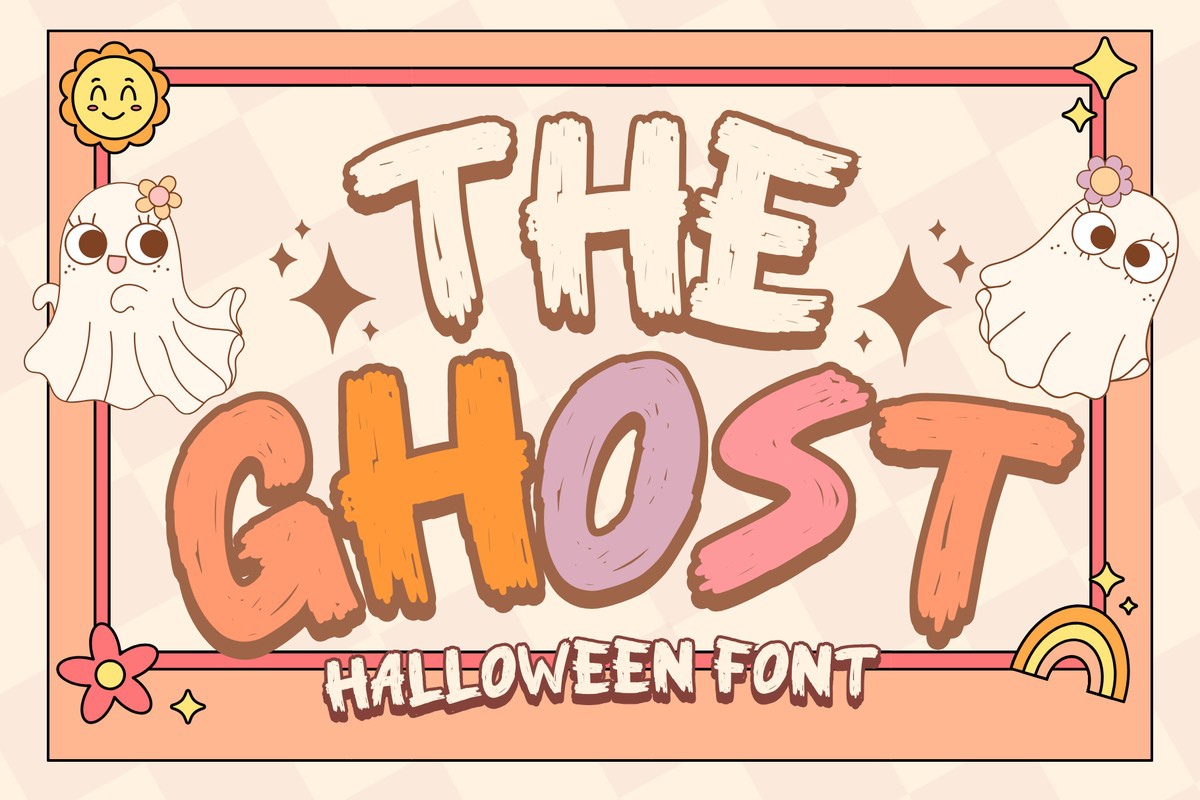
The Ghost Font
The Ghost Font excels in horror movie productions, supernatural thriller promotions, haunted attraction branding, paranormal investigation materials, gothic literature publications, mysterious escape room experiences, spooky Halloween campaigns, supernatural storytelling projects, paranormal research presentations, and ethereal mystery entertainment venues. This haunting typeface brings spectral mystery and supernatural intrigue to any paranormal-focused design project.
The Ghost Font is exciting because it embodies the chilling mystery and ethereal presence of supernatural phenomena, featuring translucent letterforms that seem to materialize from the spirit world with ghostly elegance and vanish into shadows like apparitions in the night. Its spectral character instantly conveys otherworldly presence, mysterious atmosphere, and the spine-tingling fascination that draws people to explore the unknown realms beyond mortal understanding.
The Ghost Font family includes Light, Regular, Medium, and Bold weights with spectral alternates, ethereal flourishes, paranormal ornamental elements, and supernatural symbols that enhance the ghostly aesthetic, providing horror designers with haunting tools for creating typography that channels otherworldly energy and celebrates the mysterious beauty of paranormal phenomena.
The Ghost Font Free Download offers supernatural entertainment professionals access to one of the most authentically haunting typefaces available for paranormal design applications. This exceptional font has gained recognition among horror filmmakers, haunted attractions, and supernatural entertainment venues for its ability to communicate ghostly presence and paranormal atmosphere through typography that embodies the chilling elegance of spectral manifestations.
Paranormal entertainment designers appreciate The Ghost Font for its exceptional ability to convey supernatural mystery and ghostly atmosphere through hauntingly crafted letterforms. The font's ethereal character and spectral details create immediate associations with ghost stories, paranormal encounters, and the mysterious phenomena that blur the boundaries between the physical world and the supernatural realm that exists beyond human perception.
The design philosophy behind The Ghost Font celebrates the enduring human fascination with the supernatural and the mysterious forces that exist beyond our understanding, making it particularly effective for horror entertainment, paranormal research, and supernatural storytelling that explores the unknown territories of human experience. Creative teams working on supernatural projects find this font essential for evoking otherworldly atmosphere.
Whether used for horror film productions, haunted entertainment venues, or supernatural mystery campaigns, The Ghost Font delivers the perfect combination of spectral elegance and paranormal authenticity. Its ghostly appeal and supernatural mystique make it an indispensable choice for entertainment brands that create spine-tingling experiences, explore paranormal mysteries, and celebrate the haunting beauty of supernatural phenomena that captivate human imagination.